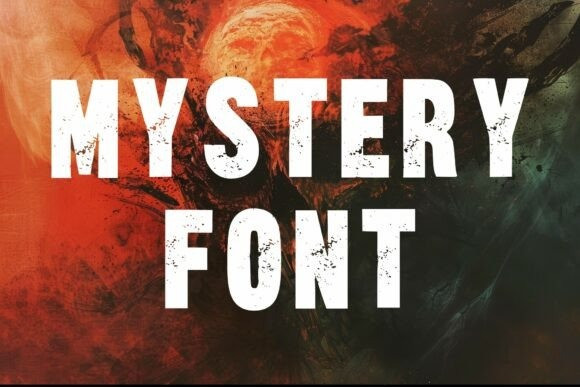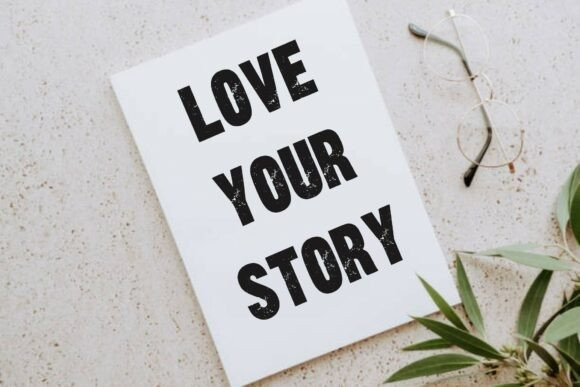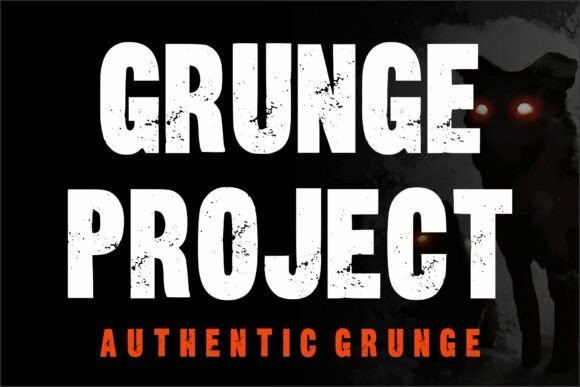
Grunge Project Font
Grunge Project Font, a bold and distressed typeface that captures the raw energy of urban rebellion and underground design. This font embodies authentic grit, featuring rough textures, imperfect edges, and a fearless attitude that instantly demands attention.
Perfect for posters, album covers, streetwear branding, movie titles, and edgy graphic design — Grunge Project brings the chaos and power of grunge culture into every letter. It’s strong, loud, and unapologetically imperfect, giving your designs that genuine, handcrafted feel.
With its rugged style and intense personality, Grunge Project adds a punch of realism to projects that need to stand out. Whether you’re designing for rock music, vintage layouts, or bold marketing visuals, this font will help your message hit hard.
Unleash your creativity with Grunge Project — where imperfection becomes art.